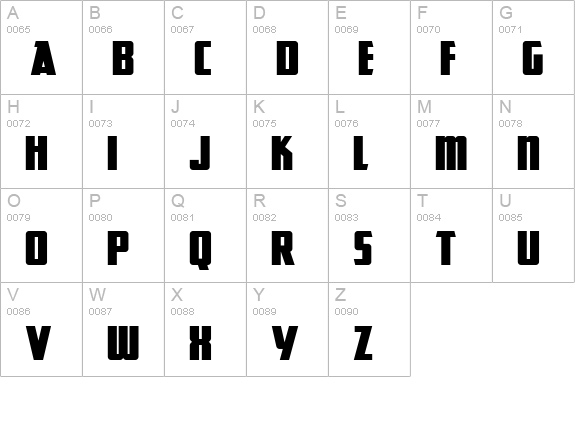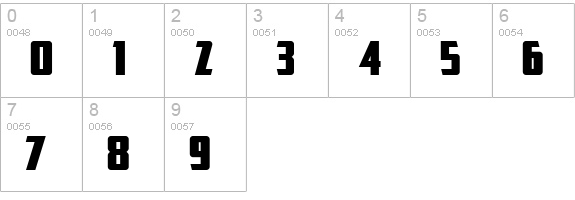
Great Lakes NF Font Details
Great Lakes NF is a versatile and elegant font that exudes a sense of timeless sophistication. Its classic yet modern design makes it perfect for a wide range of projects, from branding to editorial design. The clean lines and balanced proportions of Great Lakes NF give it a professional and polished look that is sure to elevate any design it is used in. What sets Great Lakes NF apart is its versatility - it can be used for everything from headlines to body text, making it a truly versatile addition to any designer's toolkit. Whether you're working on a sleek and modern website or a sophisticated print publication, Great Lakes NF is sure to add a touch of elegance to your design. And the best part? Great Lakes NF is completely free to download at FontsMarket.com, making it accessible to designers of all levels. So why wait? Download Great Lakes NF today and add a touch of timeless elegance to your next project.